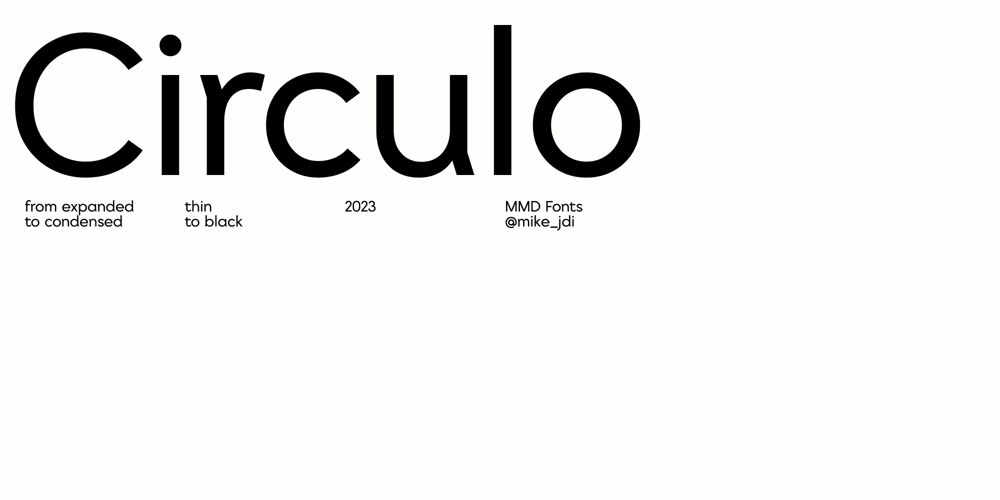
Circulo
Circulo font
Circulo Font Family was designed by Michael Mayr and published by MMD Fonts. Circulo contains 27 styles and family package options. Bound to rules,unbound in the usage.Hyper geometric,and minimal contrast.Circulo V1 is based on a font project I originally started because of a client I had. I wanted to create a display and text font for their product design brand, which is all about reducing the amount of necessary materials and production steps. Before I started the course at tipo-g it was called -“REDUCE“ and was more or less finished. The concept was based on the name. How far can letter shapes be reduced to their core geometric concepts and still be identified as letters? But in a way, it lacked a unique approach and was just a generic geometric Sans Serif with a lack of finesse. There was already a glimpse of characteristics visible which would later define Circulo V1.‍The high focus on geometric shapes was not of the same severity, and the angle on the stems was less intense. Those, as I call them, fake serifs turned out to be a significant factor in legibility and the characteristic of the font. Besides those changes and improvements, I decided to implicate a new feature to the concept, a condensed style. I quickly realised that it is impossible to keep my perfect circles and half-circles in this style without breaking my rules for the font. This „problem“ turned out to be the most crucial feature of the condensed set. Circular-based Letters will ignore the rules and boundaries of the condensed style and stay asthey are. This feature allows the user to create a unique rhythm in their texts, and if you use the variable font, you can decide how intense this rhythm will be. In this situation, the user can choose which letters are allowed to keep their shapes and which will be put in their condensed corset. All, some or none of them, you decide.